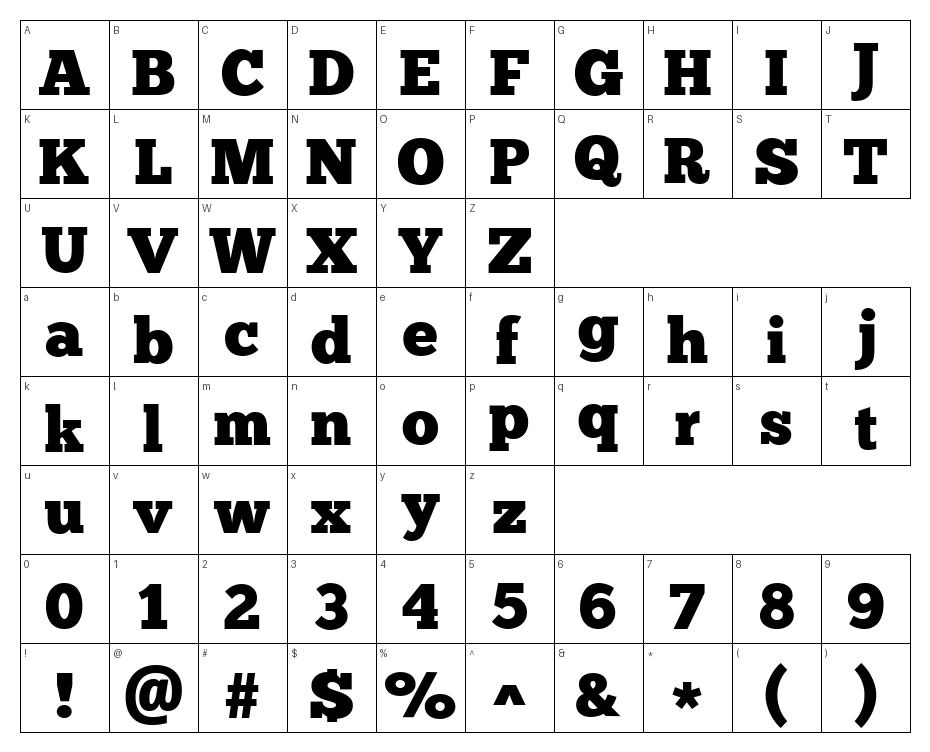
With permission of Meredith Mandel, the original author of the ASCII-Font Chunk Five, I have extended Chunk Five Ex to a full featured unicode font with all figures used in latin and cyrillic writing. All latin and cyrillic extensions as well as a lot of letterlike symbols will make this to one of the most complete fonts I offer here.
Nombre de la fuente: ChunkFive Ex
Nombre del diseñador: Peter Wiegel